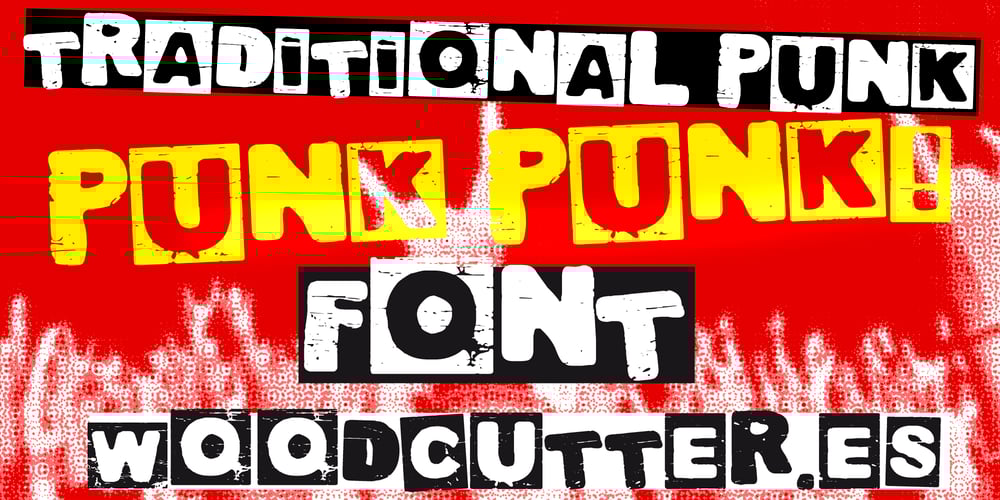
Traditional Punk Font Family was designed by Jordi Manero and published by Woodcutter. Traditional Punk contains 1 styles and family package options. “Traditional Punk” is a typeface that captures the rebellious and chaotic essence of the punk movement. Featuring letters both within and outside boxes, and in varying sizes, this font evokes the classic aesthetic of punk zines and posters from the punk scene. Each character appears to have been cut and pasted chaotically, providing a sense of energy and anarchy. Perfect for designs aiming to break the rules and stand out with a touch of irreverence, “Traditional Punk” adds an authentic and subversive character to any graphic project.